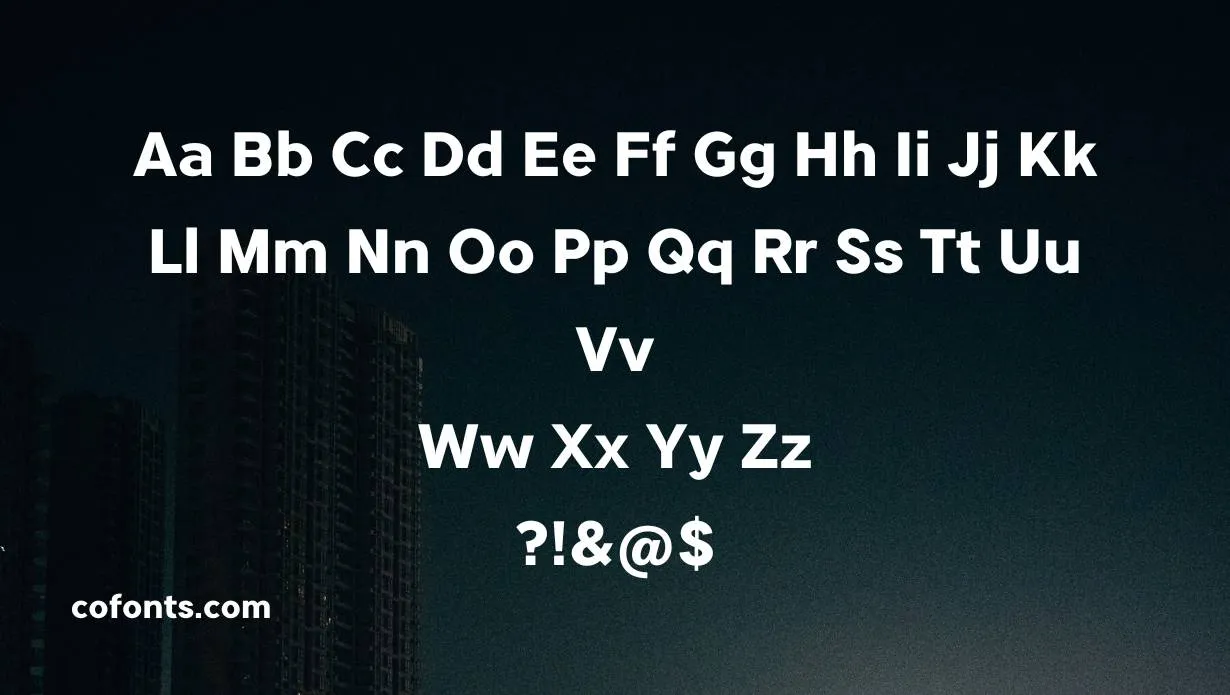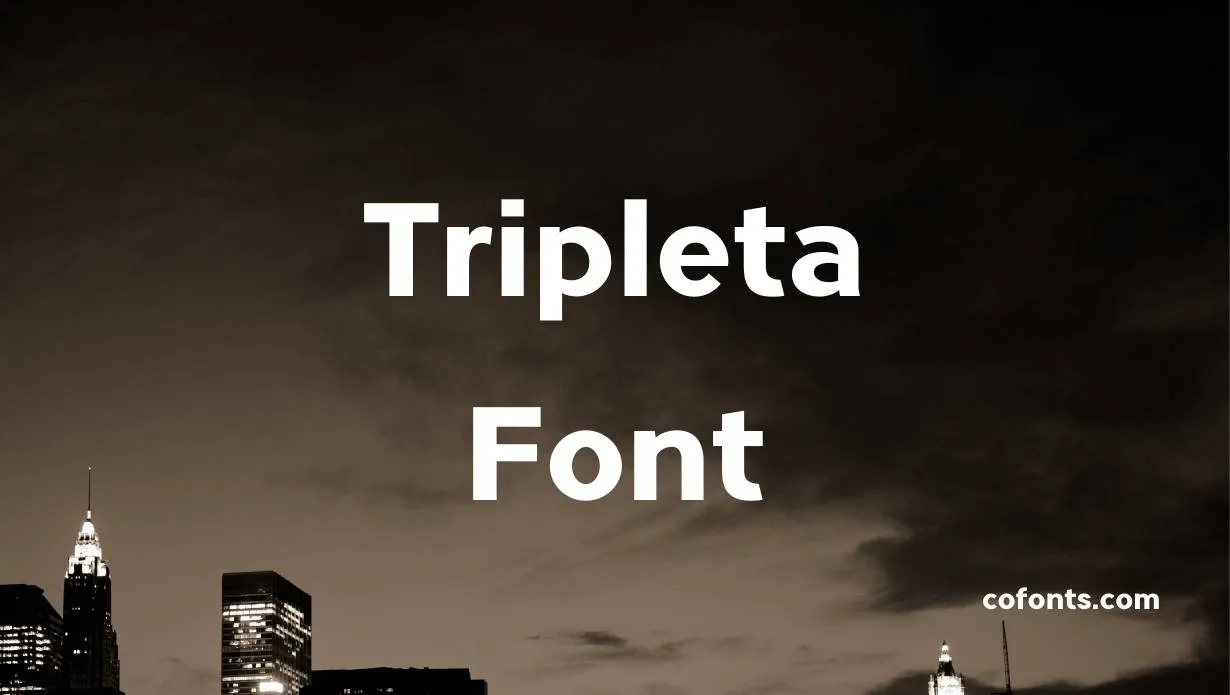
Tripleta Font Free Download is a modern typeface available in multiple variants and styles.
- Tripleta Font Regular
- Tripleta Font Bold
- Tripleta Font Italic